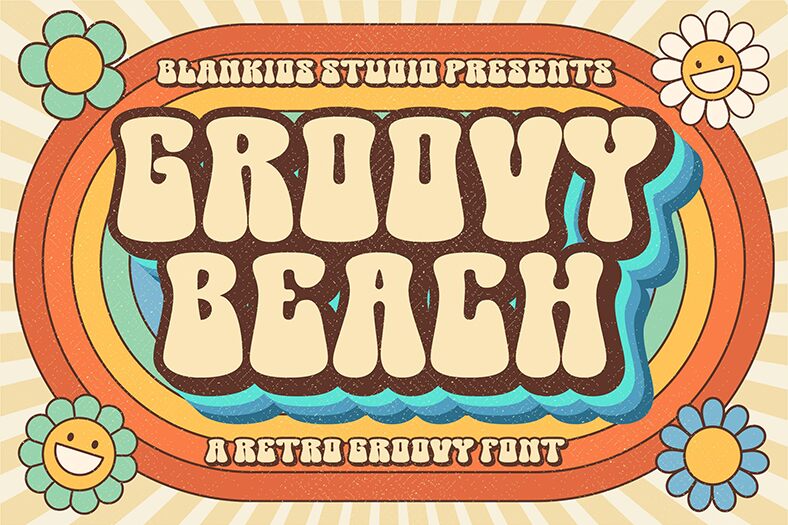
Groovy Beach Extrude
Groovy Beach, a captivating font that instantly transports you to the sun-drenched shores of a coastal paradise. This bold and exuberant display font, crafted by designer Bangkit Tri Setiadi, exudes a sense of playful energy and laid-back charm.
With its exaggerated, groovy letterforms, Groovy Beach commands attention, making it an ideal choice for eye-catching headlines, signage, and branding applications. The font's bold weight and condensed width lend it a striking, confident presence, while its unique, expressive style adds a touch of retro flair and whimsy to any design.
Whether adorning concert posters, apparel graphics, or vibrant packaging, Groovy Beach is sure to make a lasting impression, capturing the carefree spirit of the beach.
Blankids Studio
Groovy Beach Extrude by Blankids Studio